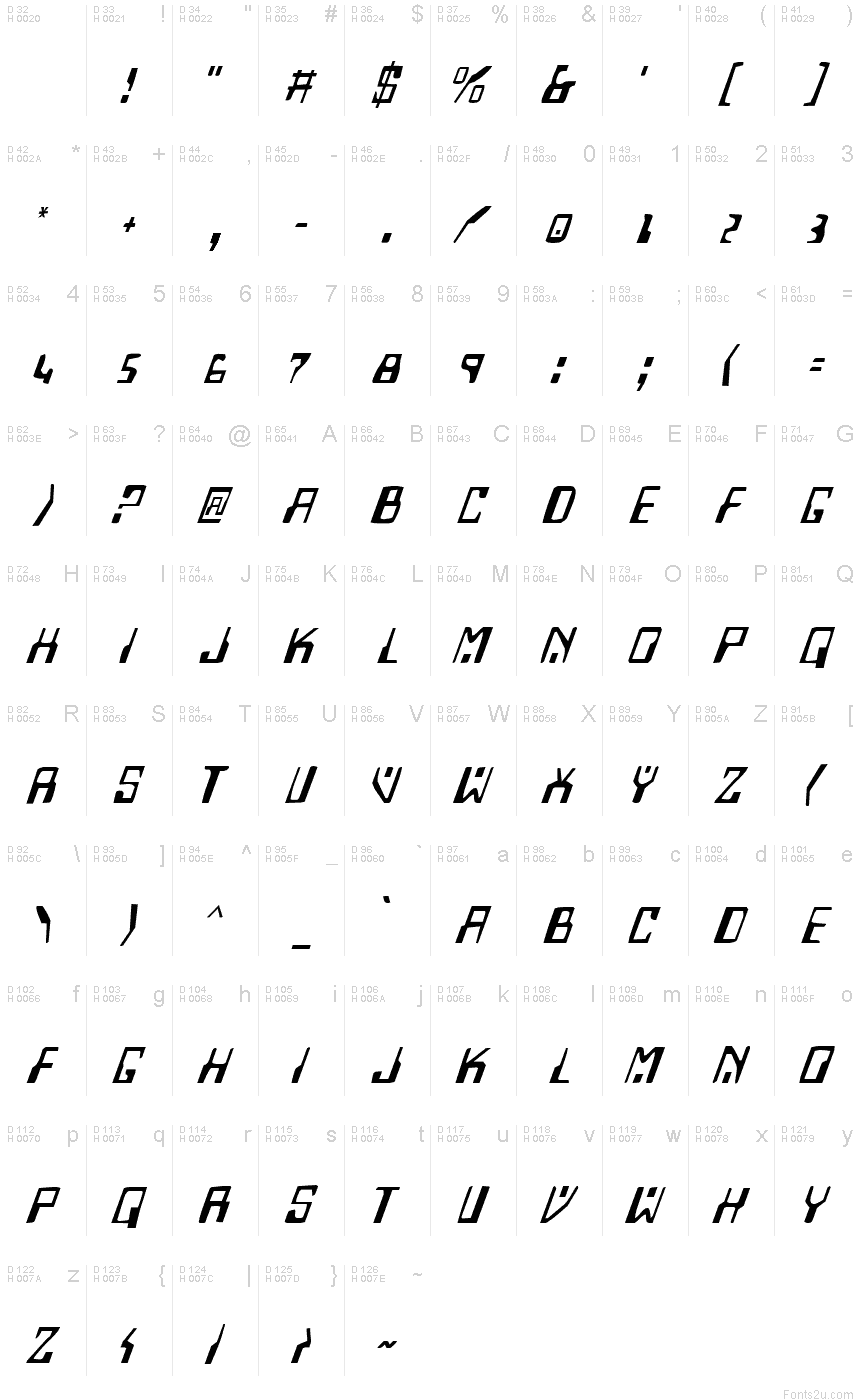
Homemade Robot Italic
Homemade Robot Italic font by Iconian Fonts is a free techno futuristic typeface. Its aggressively slanted letters, thick blocky strokes, and sliced angles feel like motion blur frozen in solid ink, as if a racing HUD or mech logo were stamped straight onto the page. The texture is bold and a little raw, giving your text a hand-tooled, custom-machine vibe rather than sterile sci-fi gloss.
Using Homemade Robot Italic, you can push high-energy visuals for game logos, esports teams, sci-fi posters, tech YouTube covers, event flyers, and bold app splash screens. The tight spacing and forward lean make it shine on short words and punchy taglines. Pair this free font with a simple geometric sans in smaller text, and let Homemade Robot Italic handle the loud, fast, attention-grabbing parts of your layout.